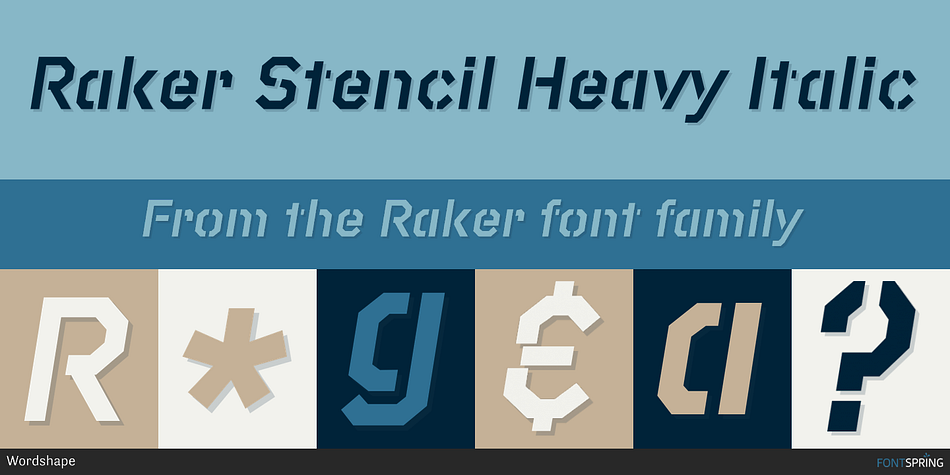
Raker Stencil Heavy Italic
Designed by Ian Lynam, Raker is a stencil and display sans font family. This typeface has forty styles and was published by Wordshape.
Raker was born out of a love for retro science fiction aesthetics as evidenced in films like The Clone Returns Home, Moon, and Alien, while simultaneously being a text typeface with a humanist influence and solid spacing.
Raker was born out of a love for retro science fiction aesthetics as evidenced in films like The Clone Returns Home, Moon, and Alien, while simultaneously being a text typeface with a humanist influence and solid spacing. The family includes 4 cuts: Raker, Raker Display, Raker Stencil, and Raker Display Stencil. Each cut includes 5 weights of Roman and italic characters—Light, Regular, Medium, Bold, and Heavy.
Each weight of each cut has been lovingly spaced and kerned, and all weights support Western, Eastern and Central European languages. Hidden pattern glyphs are included, as are standard ligatures. All italics are true italics and extensive currency support is included. All weights of all cuts have been extensively hinted for the best performance on-screen.
Raker was designed to function as a fun, futuristic family of typefaces that will suit a wide variety of applications.